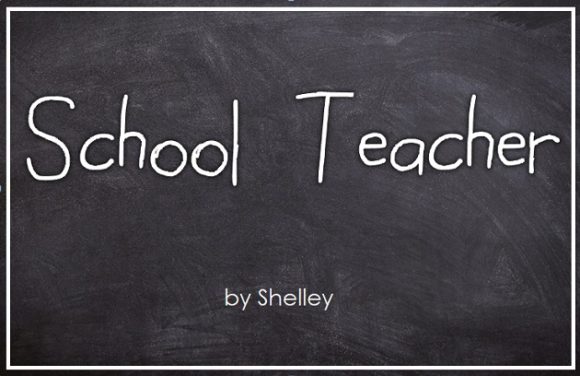
School Teacher Font
About School Teacher Font
School Teacher is a fun and playful font with a whimsical twist. Use it for any design idea that requires an adorable, youthful feel.